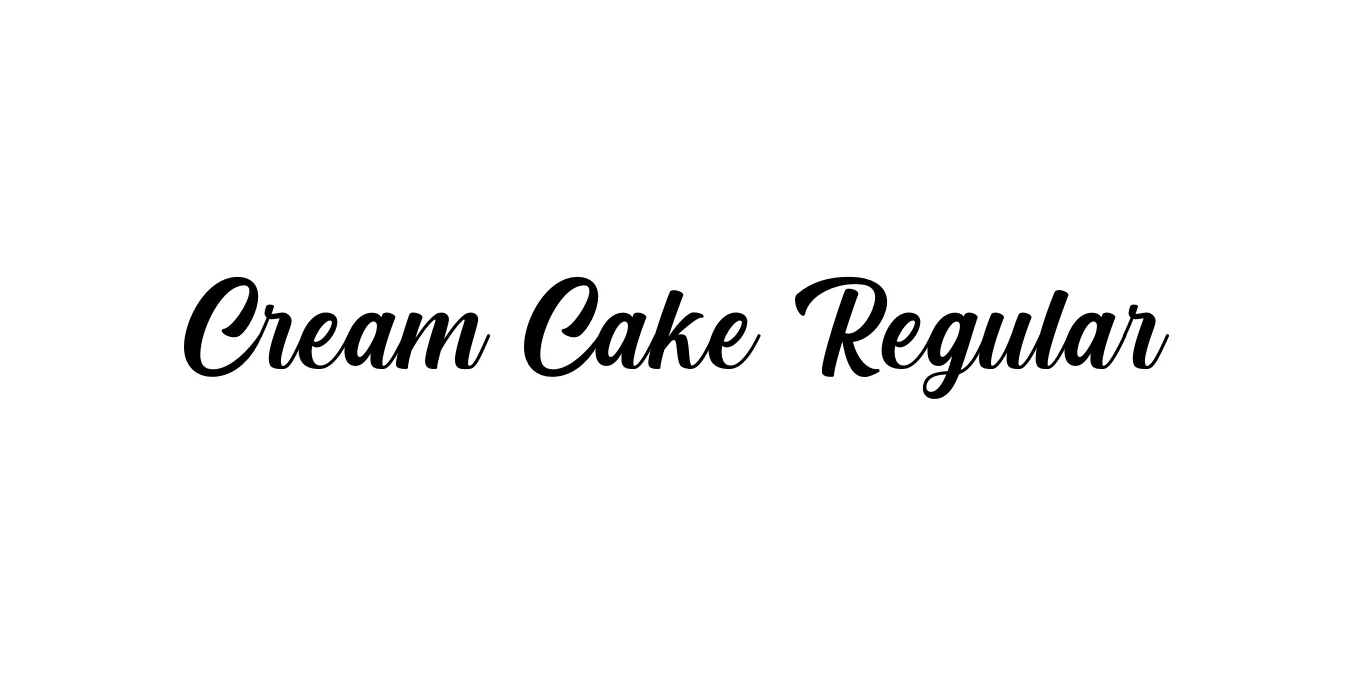
Cream Cake Regular
Cream Cake Regular is a playful and vibrant script typeface created by the prolific Swedish font designer Mans Greback. Released in 2017, this font is characterized by its fluid, bouncy baseline and rhythmic strokes that emulate authentic hand-lettering. Its thick-to-thin transitions are smooth and modern, providing a cheerful and informal aesthetic that resonates well with contemporary design trends.
As part of the wider Mans Greback collection, Cream Cake has become a go-to choice for designers looking for a personal and welcoming touch. It maintains high legibility despite its expressive flourishes, making it suitable for both digital screens and print media. This font is particularly favored in the food and beverage industry, wedding stationery, and social media marketing where a sense of warmth and creativity is paramount.
Cream Cake Regular Best Uses
Perfect for logo designs that require a feminine or artisanal touch.
Ideal for creating engaging quotes, captions, and stories on Instagram and TikTok.
Great for wedding invitations, greeting cards, and party signage.
Excellent for custom t-shirt designs and lifestyle merchandise.